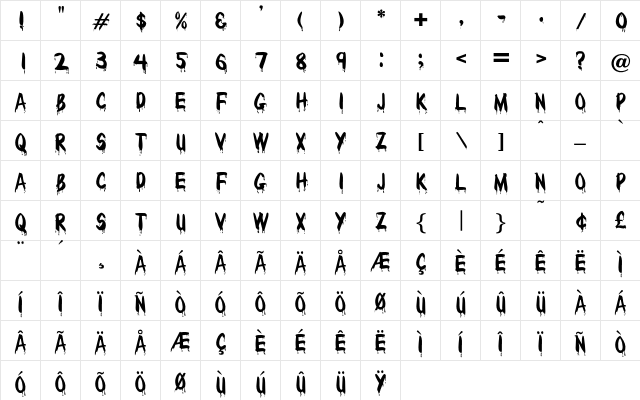
OPTIDracula Regular
Design Context for OPTIDracula
OPTIDracula is a composed and adaptable typeface that performs quietly and consistently across a wide range of design contexts.